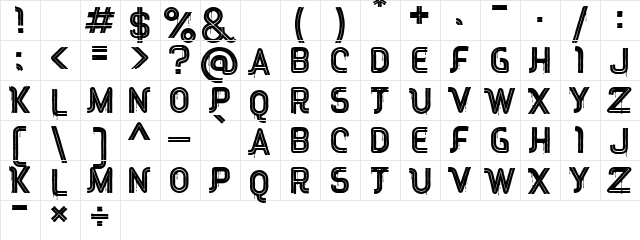
RED Peppers Regular
| Foundry | diq٠DRMWN |
| Designer | diqtam darmawan |
Design Context for RED Peppers Typeface
RED Peppers is a composed and adaptable typeface that performs quietly and consistently across a wide range of design contexts.